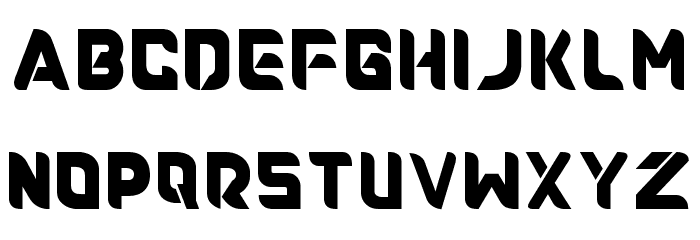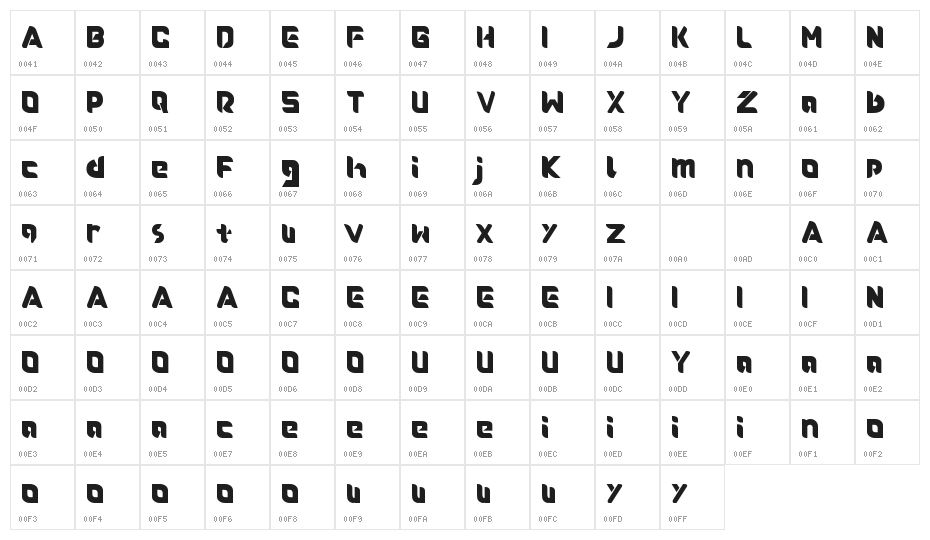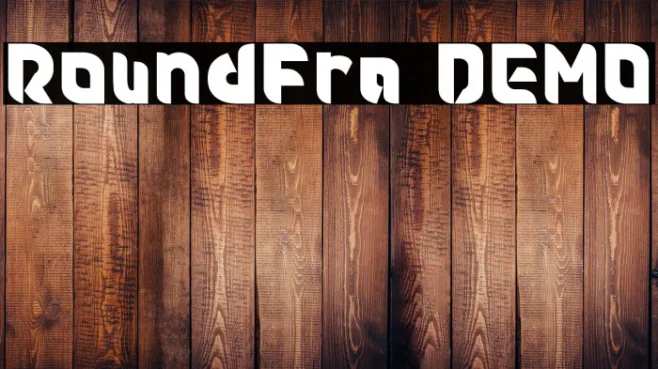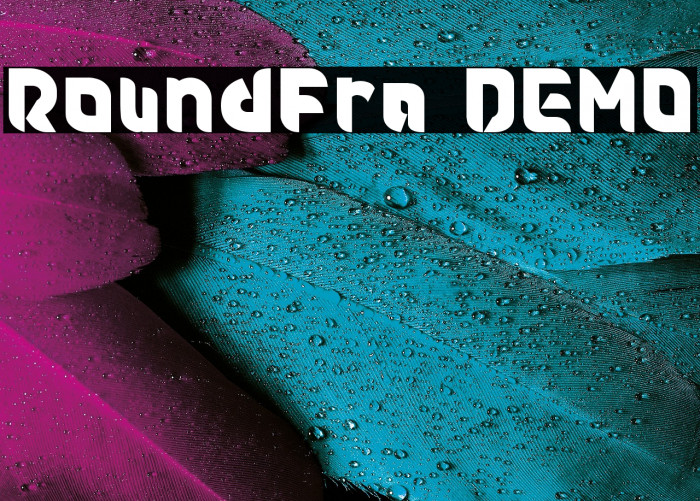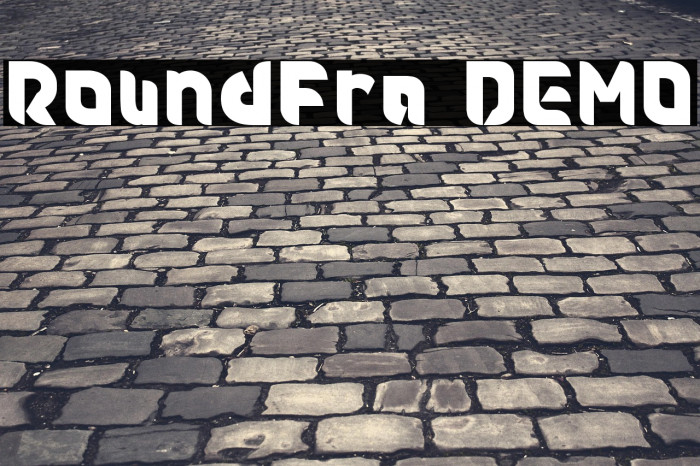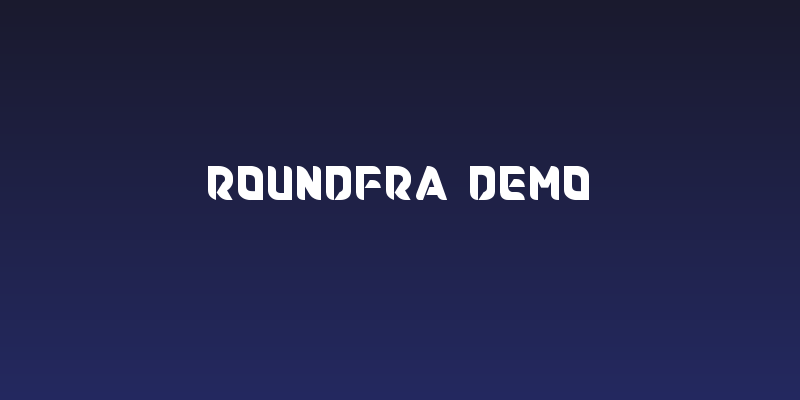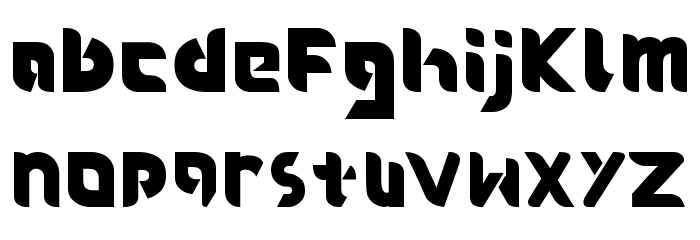
Roundfra DEMO Font
Roundfra DEMO Description
This font features a bold and geometric style with a modern twist. The characters are constructed with sharp angles and clean lines, giving it a futuristic and edgy appearance. The uppercase and lowercase letters maintain a consistent design, with unique cuts and shapes that add a distinctive flair. The numbers and special characters follow the same design principles, ensuring uniformity across all glyphs. This font is ideal for projects that require a strong visual impact and a contemporary aesthetic.